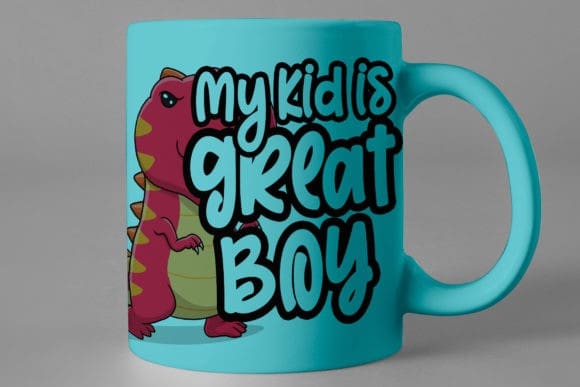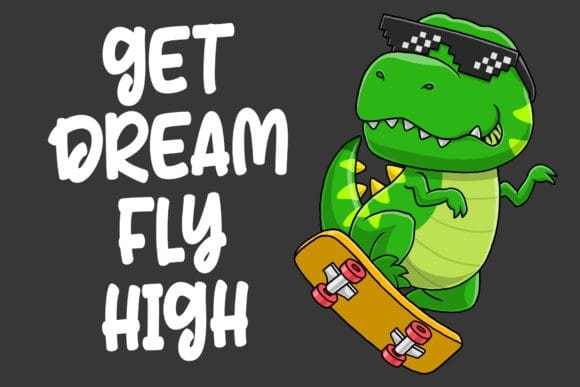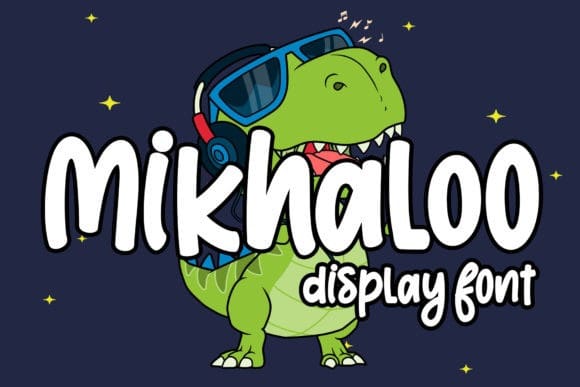
Mikhaloo Display Font
Mikhaloo Display Font is a clean and playful display font. This font is PUA encoded which means you can access all of the glyphs and swashes with ease!